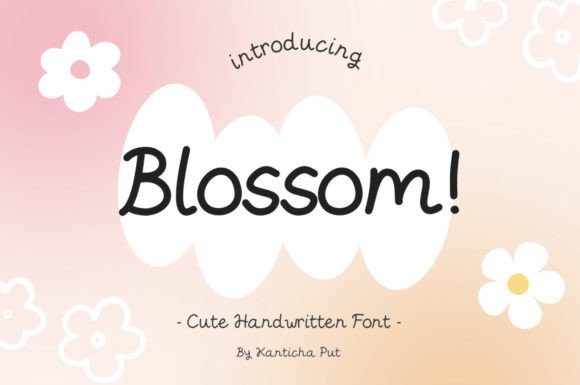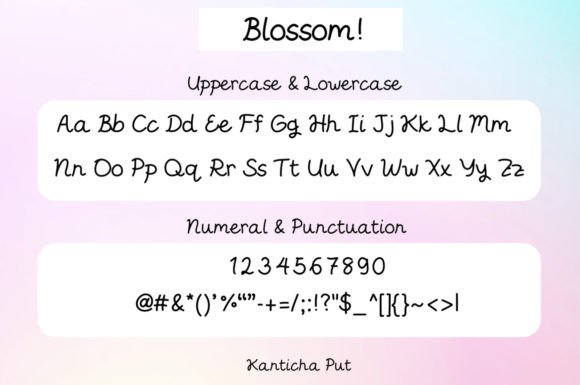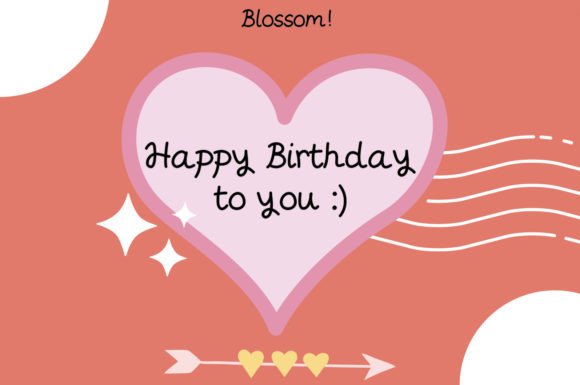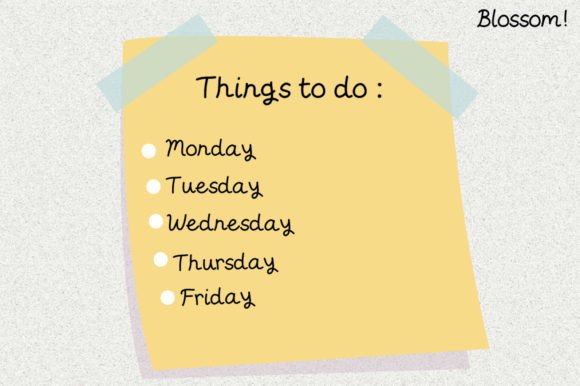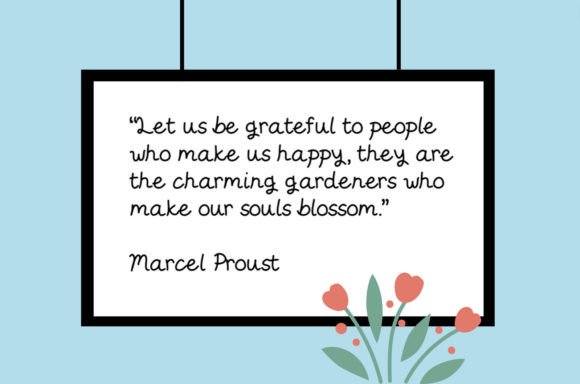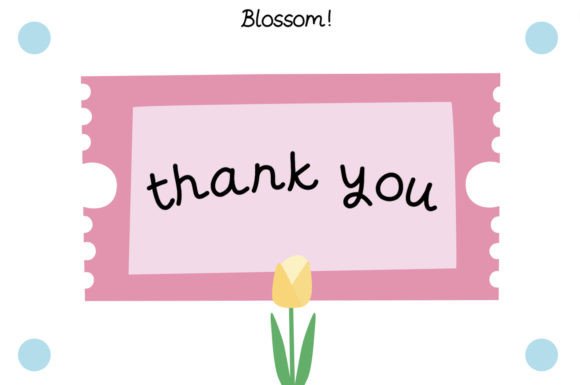
Blossom Font
Blossom Font: Charming Handwriting for Delightful Designs
Blossom is an adorable handwritten font that brings a delightful and endearing quality to your design projects. Its cuteness makes it perfect for various creative endeavors, from invitations to branding materials.
Key Features of Blossom Font
• Charming Style: Blossom adds warmth and joy to your designs.
• Versatile Use: Suitable for many projects, including greeting cards and posters.
• Authentic Look: Conveys a personal touch that resonates with viewers.
Invitations and Greeting Cards
Blossom’s cute style is ideal for creating heartwarming wedding invitations and special occasion cards that leave a lasting impression.
Social Media Graphics
Use Blossom to design eye-catching posts for Instagram and other platforms, capturing attention with its playful charm.
The font’s friendly nature makes it perfect for creating approachable logo designs and brand identities that resonate with customers.
Why Choose Blossom Font?
Blossom offers more than just cute letters. Here’s why it stands out:
• Creates a warm and joyful feel in your designs
• Versatile enough for both personal and professional projects
• Helps make your work more engaging and memorable
By using Blossom, you open up new design possibilities. Its charming style works well in many contexts, from children’s book covers to poster designs. The font’s sweet and joyful nature can inspire creative ideas and help you approach projects from a fresh, heartwarming perspective.
Blossom in Digital Design
In the digital realm, Blossom excels in creating engaging website headers and social media graphics. Its handwritten style can help capture attention and increase engagement on various online platforms, making it a valuable asset for digital marketers and content creators.
If you’re looking for a font that’s both adorable and versatile, Blossom is an excellent choice. It’s perfect for adding a touch of warmth and charm to your work, especially for projects that need a friendly, approachable feel.
Explore how Blossom can transform your designs. From personal stationery to creative branding projects, this font brings a delightful and endearing quality to your creations.